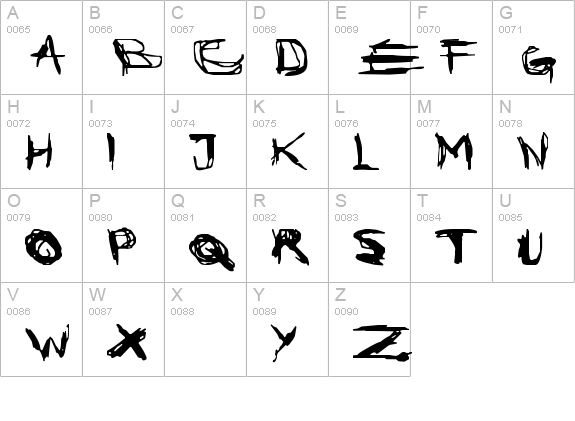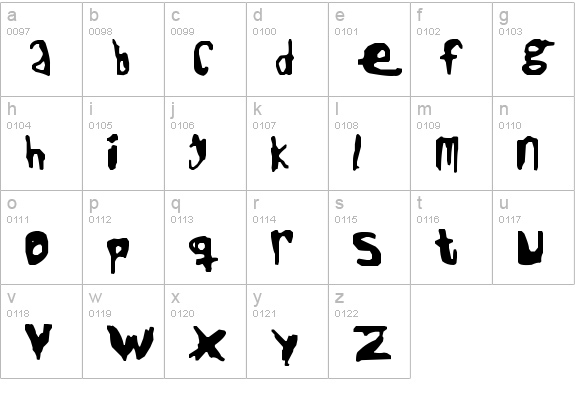
Jack The Ripper Font Details
Introducing Jack The Ripper font, a chilling and captivating typeface that will send shivers down your spine. Inspired by the infamous serial killer from Victorian London, this font embodies the enigmatic and haunting aura of the era. With its sharp edges and twisted curves, Jack The Ripper font commands attention and leaves a lasting impression. Designed with meticulous attention to detail, Jack The Ripper font captures the essence of mystery and suspense. Its unique blend of vintage elegance and macabre aesthetics make it the perfect choice for projects that require a touch of darkness and intrigue. Whether you're working on horror movie posters, Halloween-themed designs, or gothic literature covers, this font will add an extra layer of intensity and authenticity. What makes Jack The Ripper font even more enticing is that it is completely free. Yes, you read that right! This captivating font is freely available to download at FontsMarket.com. No need to break the bank or compromise on quality – Jack The Ripper font offers the perfect balance of style and affordability. Downloading Jack The Ripper font is a breeze, thanks to the user-friendly interface at FontsMarket.com. Simply navigate to the website, find the font in the extensive collection, and hit the download button. Within seconds, you'll have access to this mesmerizing font and can start incorporating it into your designs. So, why wait? Unleash your creativity and embrace the captivating allure of Jack The Ripper font. With its free availability and hauntingly beautiful design, this font is a must-have for designers, writers, and anyone seeking to add an extra touch of mystery and intrigue to their projects. Download now and let Jack The Ripper font take your designs to new chilling heights.